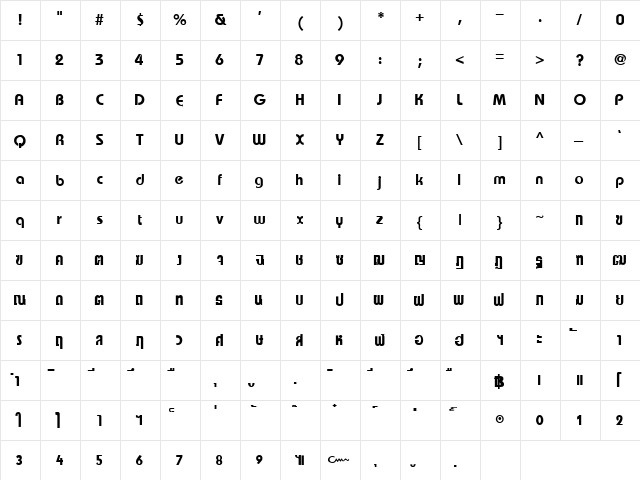
DSN RatBuRaNa Regular Font Preview
DSN RatBuRaNa Regular
Design Context for DSN RatBuRaNa Typeface
DSN RatBuRaNa takes a measured approach to typography — its balanced proportions and neutral character make it a reliable workhorse for both digital and print work.